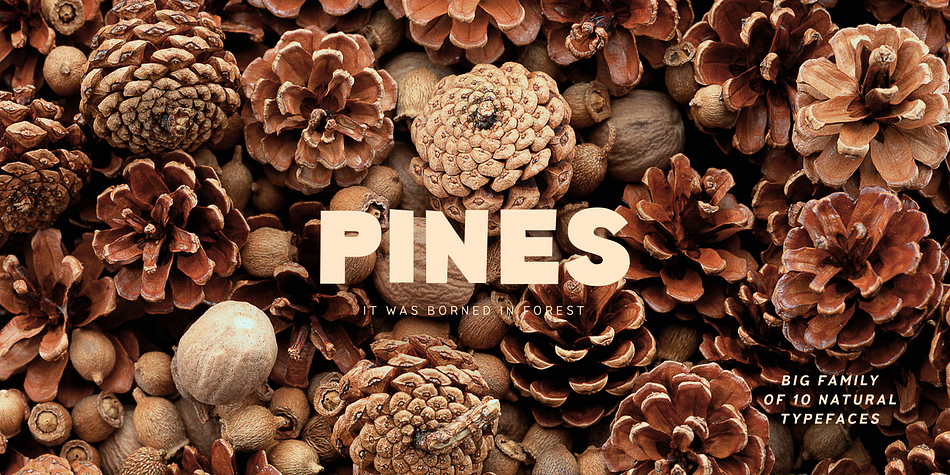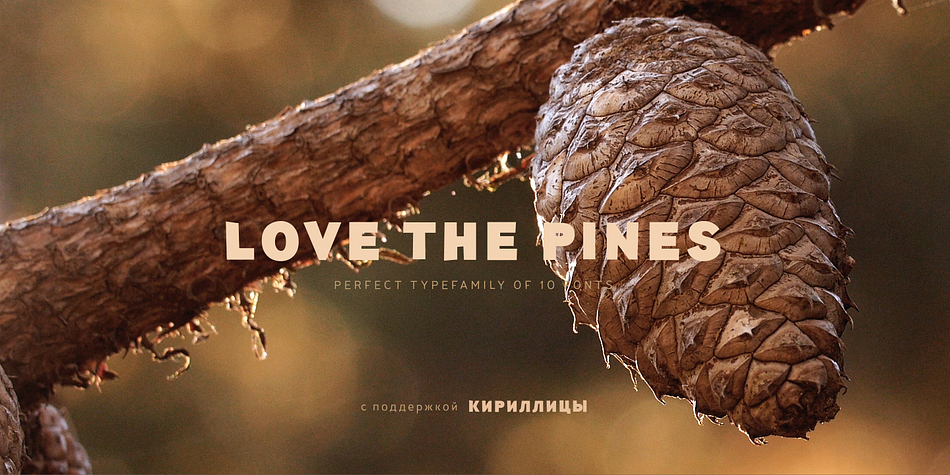
Pines
Designed by Ivan Gladkikh, Pines is a sans serif font family. This typeface has ten styles and was published by Pinata.
Imagine you’ve decided to cut letters out of paper thereby creating a modern sans-serif for a broad application range. What result would you get? We already know the answer! Pines is a fontfamily that we’ve carefully cut out of paper and then added lots of emotions and a few bright natural accidental details.
Now you can create any text layouts and contemporary design with special warmth and friendliness that was inspired by paper. Pines fontfamily is great for any ecological design theme. Use if for websites, hand-made items, and eco-friendly products packaging. Our fontfamily is also great for ecological brand identity and navigation.
We’ve named the font family Pines since it perfectly integrates into the natural environment and looks authentic and harmonious as if it came from the pine forest itself